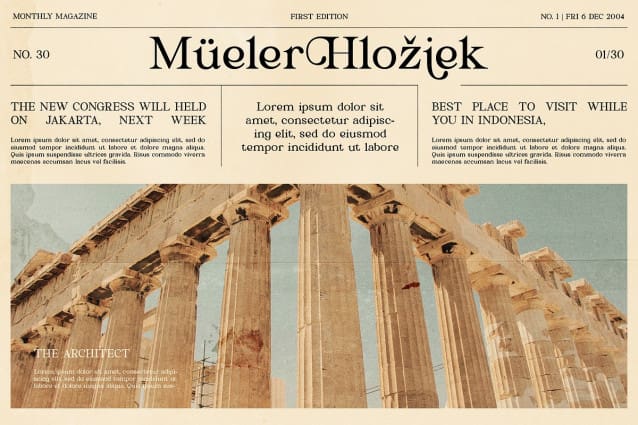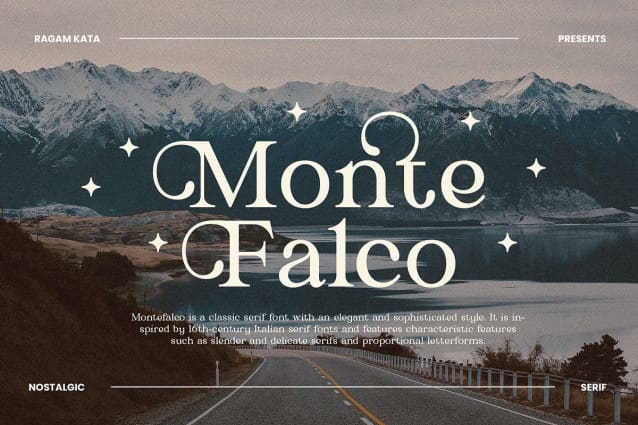
Monte Falco Font
Monte Falco Font is a classic serif font with an elegant and sophisticated style. It is inspired by 16th-century Italian serif fonts and features characteristic features such as slender and delicate serifs and proportional letterforms.